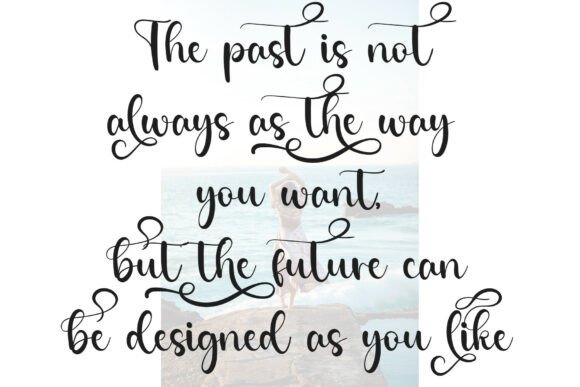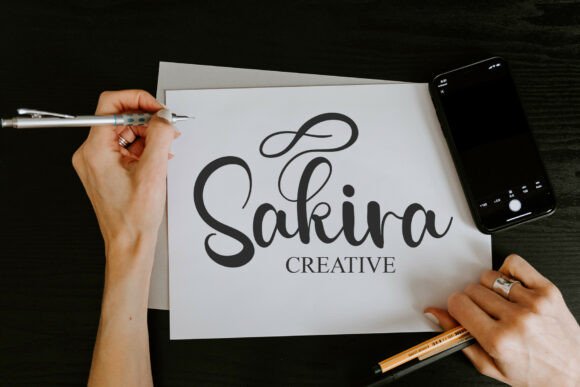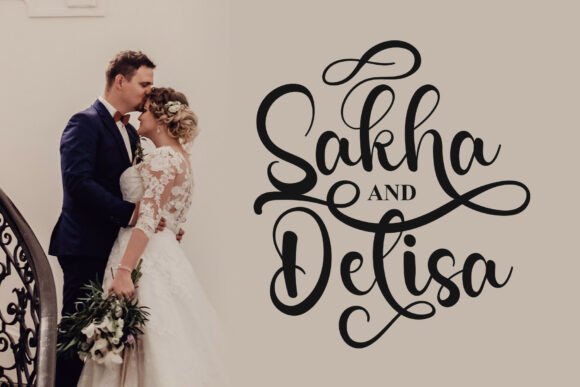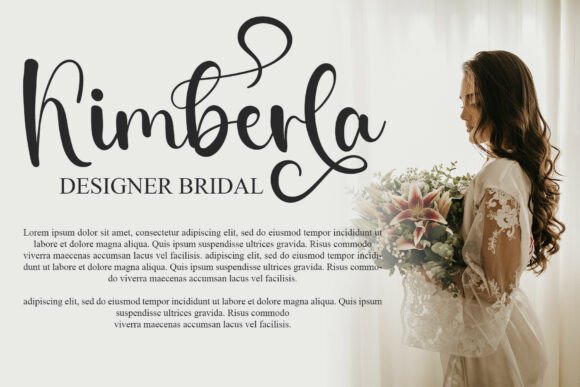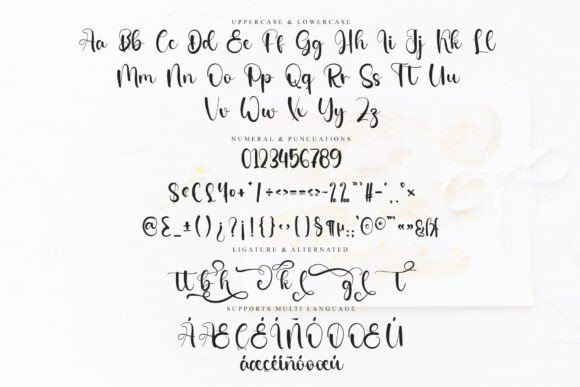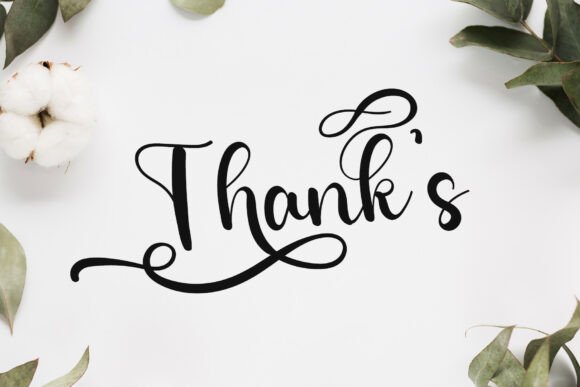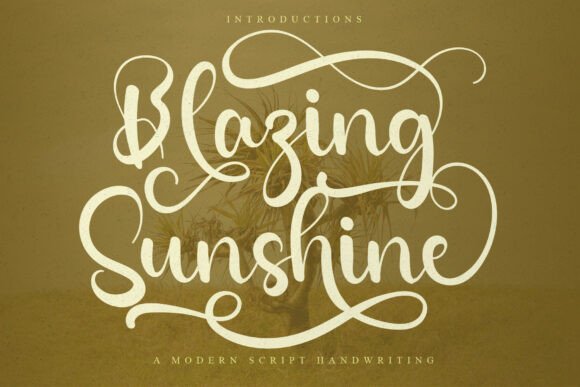
The Blazing Sunshine Font: A Warm and Elegant Script for Your Creative Projects
Have you ever been in the middle of a design project, and suddenly, you just can’t seem to find the right font? I recall a particularly frustrating experience while working on a high-end travel blog. My client wanted a sophisticated yet approachable aesthetic, but every font I tried seemed either too bland or too over-the-top. That’s when I stumbled upon the Blazing Sunshine font, and it completely transformed my design.
A Personal Connection: The Charm of Blazing Sunshine
The Blazing Sunshine font embodies the effortless charm of human touch, capturing a sense of nostalgia and personal connection. Its fluid, flowing strokes look as if they were penned just moments ago, giving your designs a warm and authentic feel. This elegant script handwriting font is perfect for projects that require a “handmade” or “bespoke” aesthetic.
What I Love About Blazing Sunshine ✨
• âś… Fluid, flowing strokes that mimic handwriting
• âś… A perfect balance of legibility and artistic flair
• âś… Rhythmic loops and natural connections for a sophisticated yet approachable character
• âś… Pairs exceptionally well with simple, clean sans-serif fonts for a modern, high-contrast look
• ⚠️ Some letters may require manual kerning for optimal spacing
• ⚠️ Limited availability of certain OpenType features in certain software
The Story Behind Blazing Sunshine
The Blazing Sunshine font was inspired by the traditional Bulgarian art of handwriting. Its creator aimed to capture the essence of handwritten script in a digital format, perfect for designers and crafters seeking a personal touch.
What is the Blazing Sunshine font best used for? The Blazing Sunshine font is ideal for projects that require a “handmade” or “bespoke” aesthetic, such as high-end travel blogs, intimate event stationery, personalized “thank you” cards, and romantic poetry books.
Does Blazing Sunshine support OpenType features? Yes, Blazing Sunshine supports various OpenType features, including glyphs and stylistic alternates. You can access these features in compatible software like Adobe Photoshop and Illustrator.